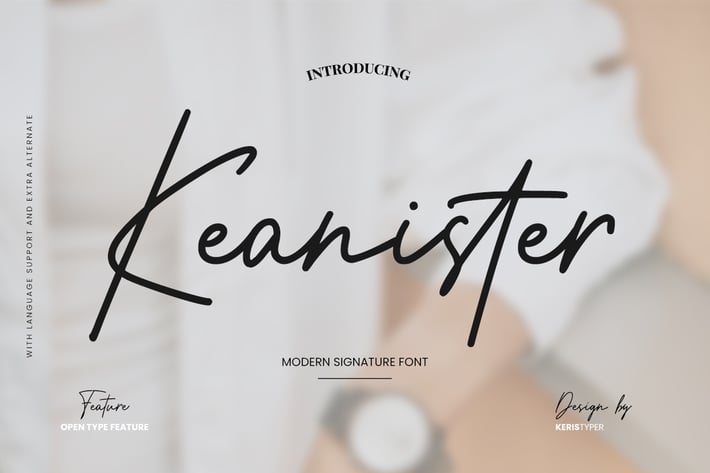
Keanister Modern Signature Font
Keanister is a modern signature script with a natural & stylish flow. This collection of scripts is perfect for personal branding, greeting cards, magazine, social media, print, packaging, and many more.
Keanister Font multilingual support:
Afrikaans, Albanian, Catalan, Danish, Dutch, English, Estonian, French, Finnish, German, Icelandic, Indonesian, Italian, Malay, Norwegian, Portuguese, Spanish, Swedish, Zulu, and many more.